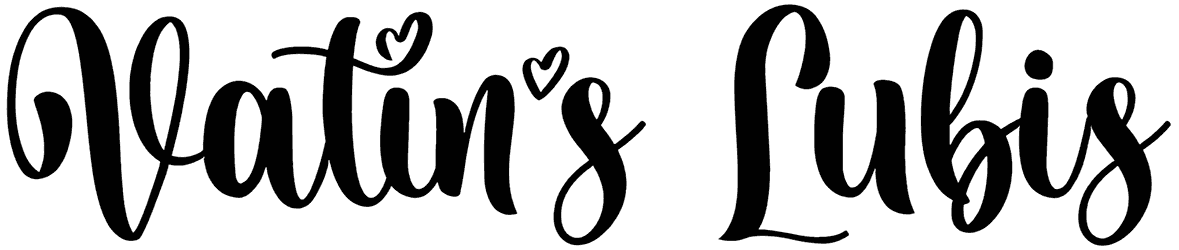
Vatins Lubis Font
Conveying a lovable and elegant vibe is not a hard nut with a Valentine font like Vatins Lubis. This curvy font, with its delightful combination of thick and thin parts, would make a unique face for texts. For posters, fashion designs, or any other projects that you are working on, Vatins Lubis can be a gorgeous pickup.